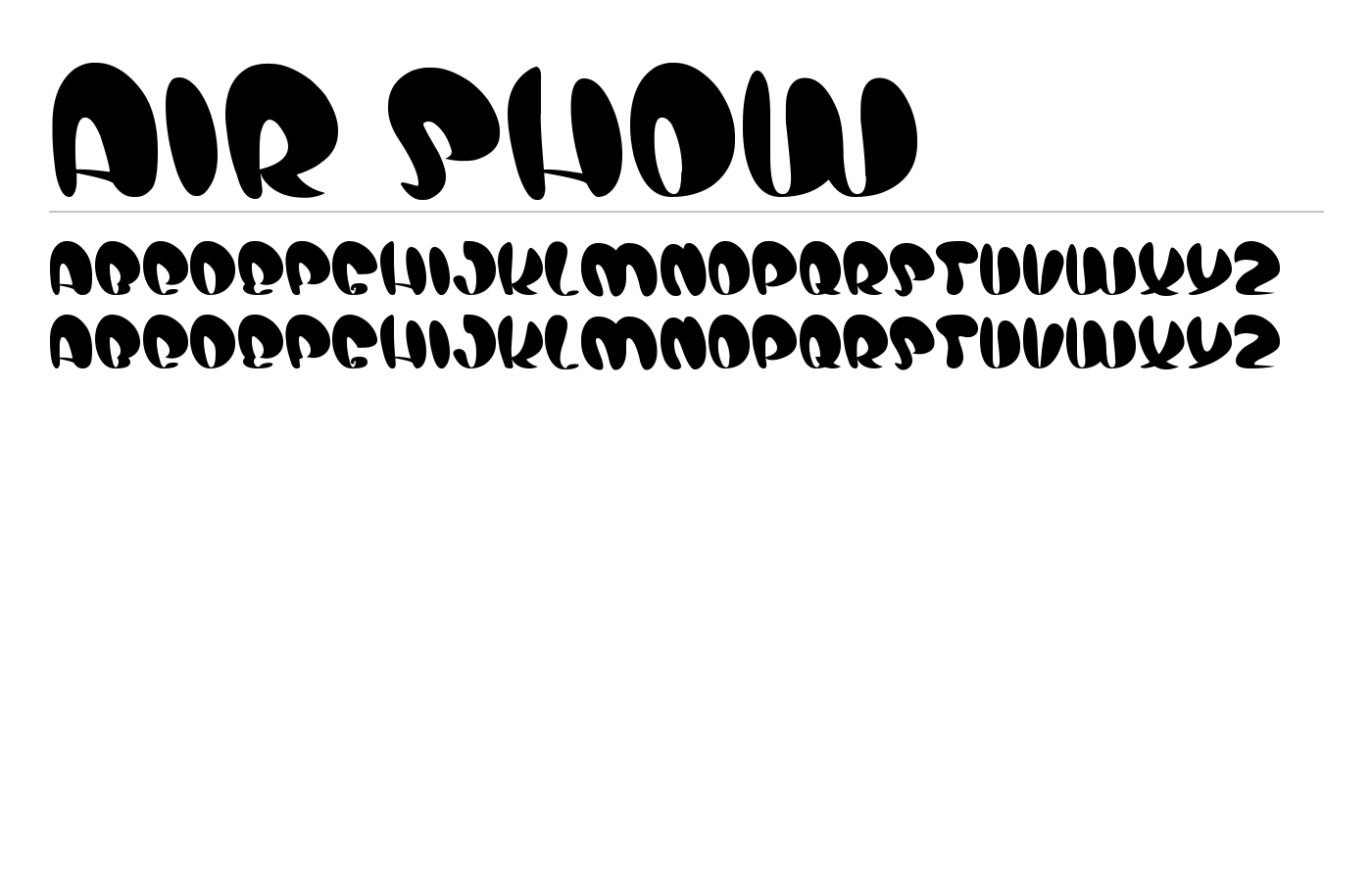
Air Show is a playful and bold display font featuring thick, rounded letterforms with a slightly condensed width, evoking a fun, retro vibe. Its whimsical, blob-like shapes and unique character details make it perfect for attention-grabbing headlines, posters, and branding that seeks a lively, quirky personality. This font adds a dynamic and energetic touch to creative projects needing a distinctive and informal style.